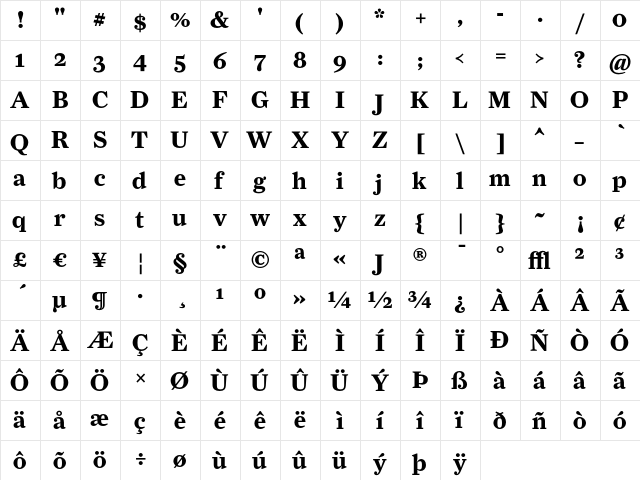
FarnhamDisplay-BoldOSF Regular
Design Context for FarnhamDisplay-BoldOSF Typeface
FarnhamDisplay-BoldOSF is built around its visual character rather than neutral utility — its distinctive forms are designed to make an impression at display sizes. Its bold stroke weight gives it real presence on the page.
Font Pairing: Pair with a clean neutral sans-serif for body copy to let FarnhamDisplay-BoldOSF's character lead without overwhelming the composition.
Pro Tip: Use FarnhamDisplay-BoldOSF exclusively at display sizes — it was designed to be seen, not read at length. Let a neutral companion handle body copy.